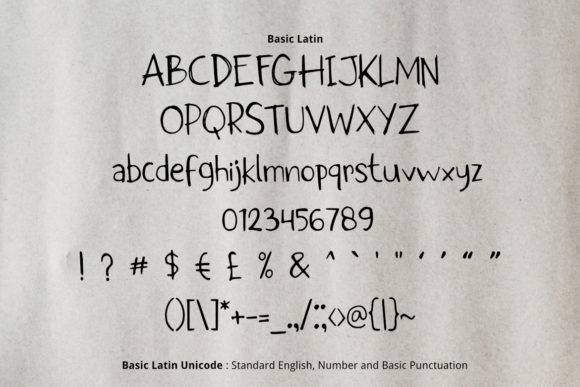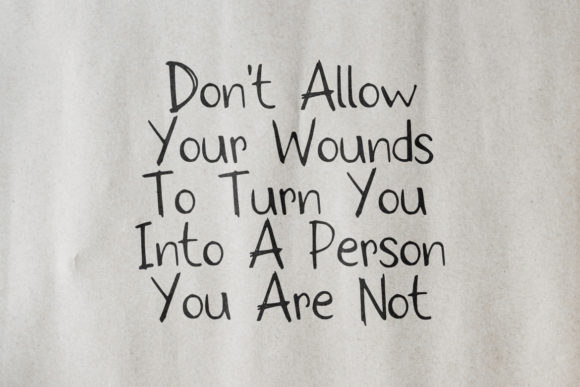
Simple Scratch Font
About Simple Scratch Font
Simple Scratch is a simple and natural handwritten font. It has a neat and vintage style and is ideal for writing quotes, posters and headlines.